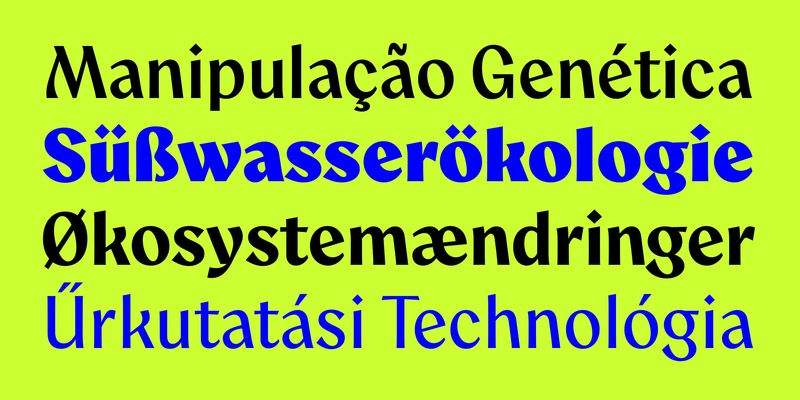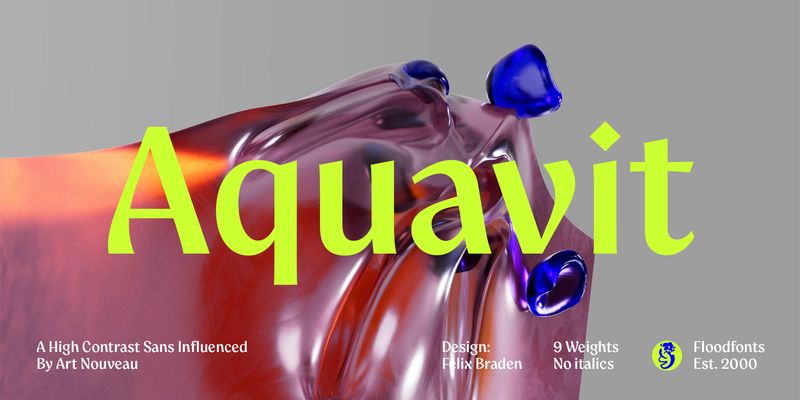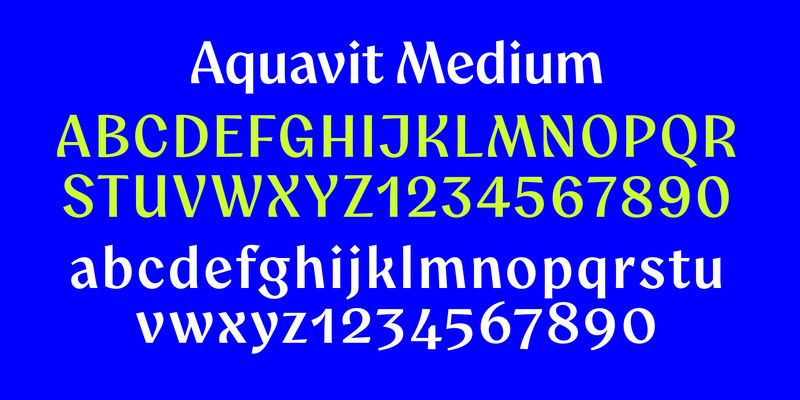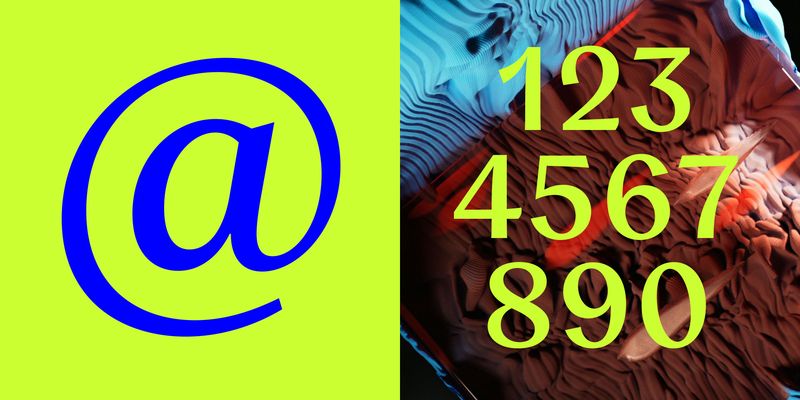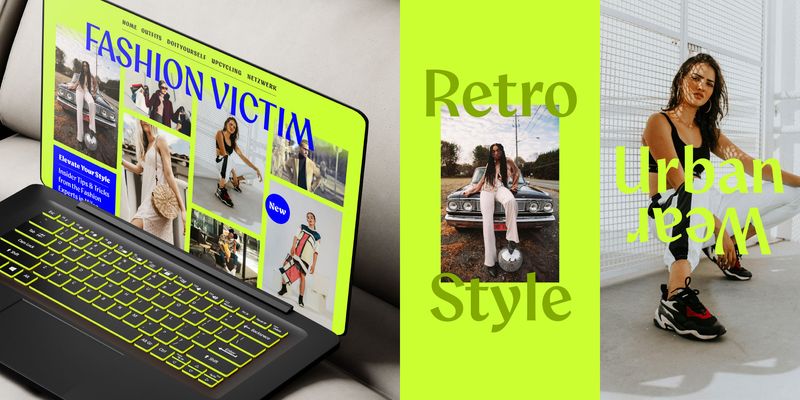
Aquavit – A unique, non-conformist display family for brands that like to break the mold.
Aquavit is a high-contrast Sans inspired by the organic forms, flowing lines, and expressive motifs of the Art Nouveau movement. Combining the crisp precision of a high-contrast sans with the warmth of vintage design, Aquavit walks the line between cool sophistication and handcrafted natural charm.
The slightly top-heavy design, with subtle calligraphic influences, breathes an air of extravagance and grace, making Aquavit a go-to choice for brands in the realm of exclusive lifestyle products – whether you’re in beauty, fashion, jewelry, music, food & beverage, interior design, or anything in between. Aquavit brings a unique sense of character and authenticity to any creative project.